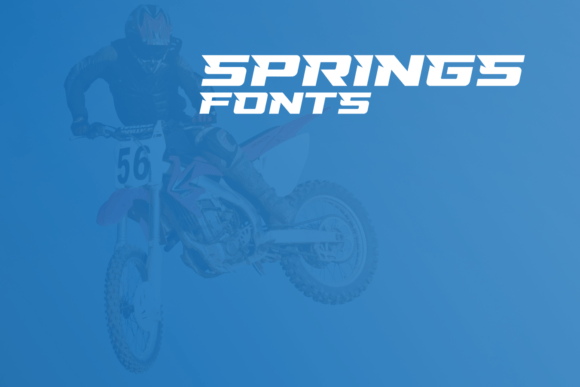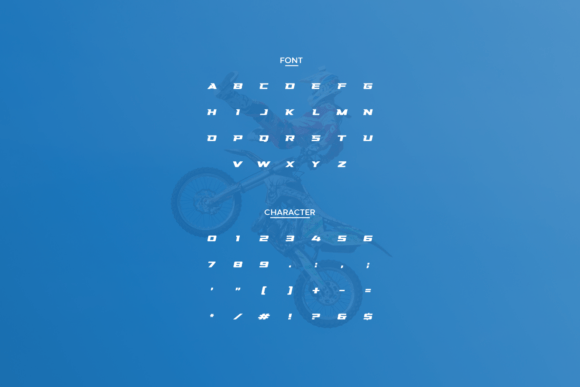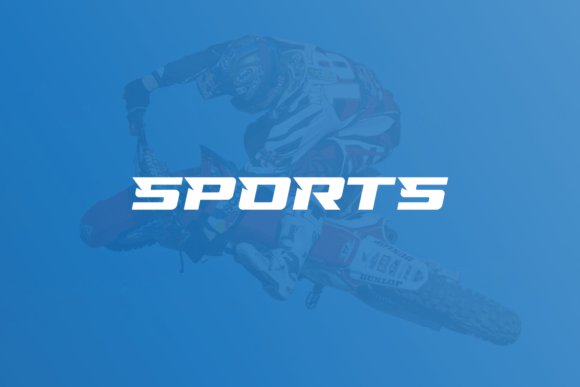
Introduction to Cruser Font
Cruser is a modern, sports-themed sans serif font.
This font would be ideal for web design, business cards, or just about anything else that requires a unique touch .
Key Features of Cruser Font